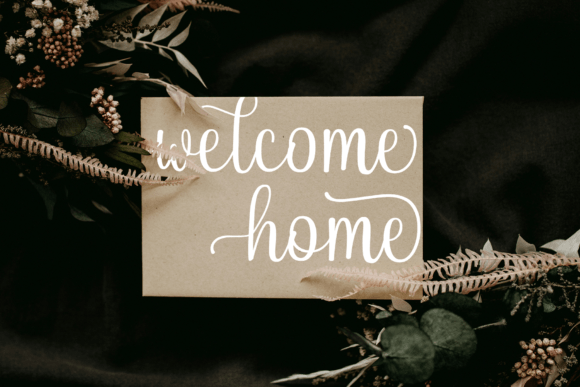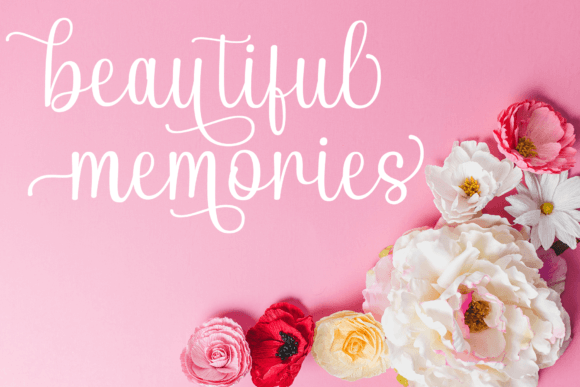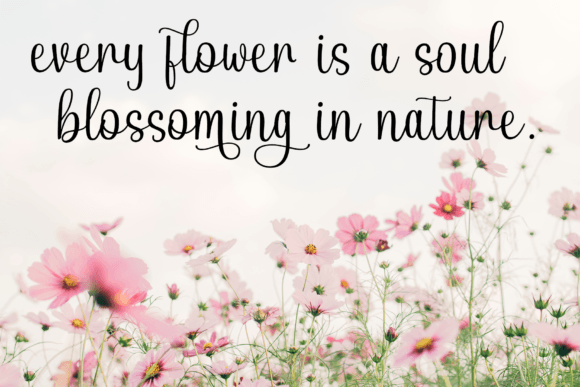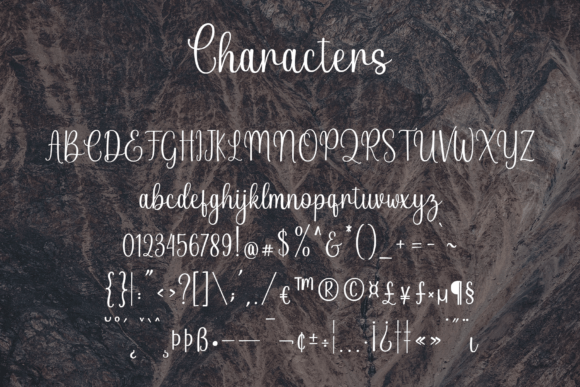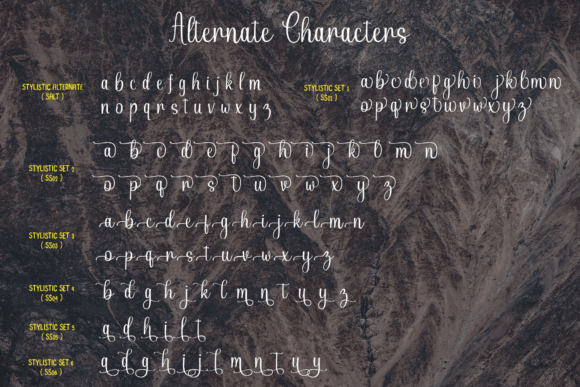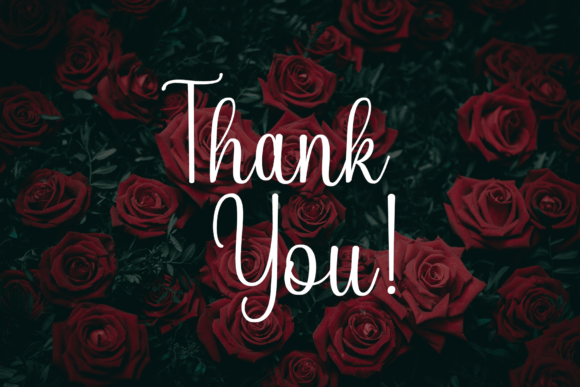
Introducing Bestie Forever Font: The Ultimate Modern Calligraphy Font
Are you a designer or crafter looking for a font that can add a touch of elegance and sophistication to your projects? Look no further than Bestie Forever Font, a modern calligraphy font that is sure to impress. With its soft curves and lines, this font lends a delicate and realistic appearance to characters, making it perfect for a variety of design projects.
What Makes Bestie Forever Font Special?
Bestie Forever Font is a modern calligraphy font that features soft curves and lines that give it a delicate and realistic appearance. With a total of 356 characters, this font is well-suited for various design projects, including invitation cards, product logos, food brands, and more. Whether you’re a designer, crafter, or DIY enthusiast, Bestie Forever Font is a versatile and stylish choice that can elevate your projects to the next level.
Key Features of Bestie Forever Font
- Modern Calligraphy Style: Bestie Forever Font features a modern calligraphy style that is both elegant and sophisticated.
- Soft Curves and Lines: The font’s soft curves and lines give it a delicate and realistic appearance that is sure to impress.
- 356 Characters: With a total of 356 characters, Bestie Forever Font is well-suited for a variety of design projects.
- Versatile and Stylish: This font is perfect for designers, crafters, and DIY enthusiasts who want to add a touch of elegance to their projects.
Uses of Bestie Forever Font
Bestie Forever Font is a versatile font that can be used for a variety of design projects, including:
- Invitation Cards: Create beautiful and elegant invitation cards for weddings, parties, and other special occasions.
- Product Logos: Use Bestie Forever Font to create stunning product logos that reflect your brand’s personality and style.
- Food Brands: Add a touch of elegance to your food brand’s packaging, menus, and marketing materials with this beautiful font.
- Crafting Projects: Use Bestie Forever Font to add a personal touch to your crafting projects, such as handmade cards, gift tags, and scrapbooking pages.
Why Choose Bestie Forever Font?
There are many reasons why Bestie Forever Font stands out from other fonts. Here are a few:
- Unique and Elegant Design: Bestie Forever Font features a unique and elegant design that is sure to impress.
- High-Quality Characters: The font includes 356 high-quality characters that are perfect for a variety of design projects.
- Easy to Read and Write: Bestie Forever Font is easy to read and write, making it perfect for body text and headlines.
Tips for Using Bestie Forever Font
Here are a few tips for using Bestie Forever Font:
- Use it for Headlines and Titles: Bestie Forever Font is perfect for headlines and titles, where you want to make a bold statement.
- Pair it with Other Fonts: Experiment with pairing Bestie Forever Font with other fonts to create a unique and stylish look.
- Adjust the Font Size and Color: Adjust the font size and color to suit your design project’s needs.
- Use it for Branding and Marketing Materials: Use Bestie Forever Font to create stunning branding and marketing materials, such as business cards, brochures, and social media graphics.
In conclusion, Bestie Forever Font is a modern calligraphy font that is perfect for designers, crafters, and DIY enthusiasts who want to add a touch of elegance and sophistication to their projects. With its soft curves and lines, 356 characters, and versatile style, this font is well-suited for a variety of design projects. Whether you’re creating invitation cards, product logos, or crafting projects, Bestie Forever Font is a stylish and elegant choice that is sure to impress.